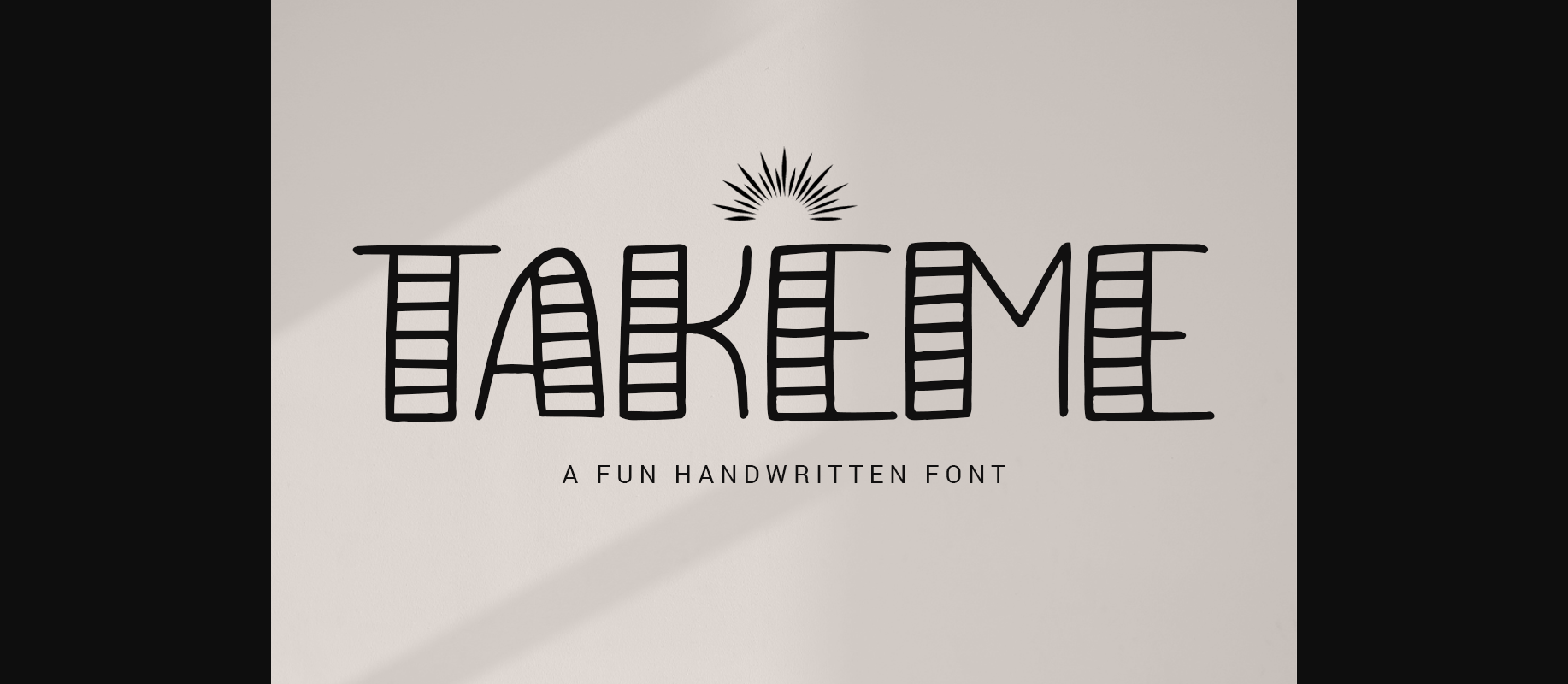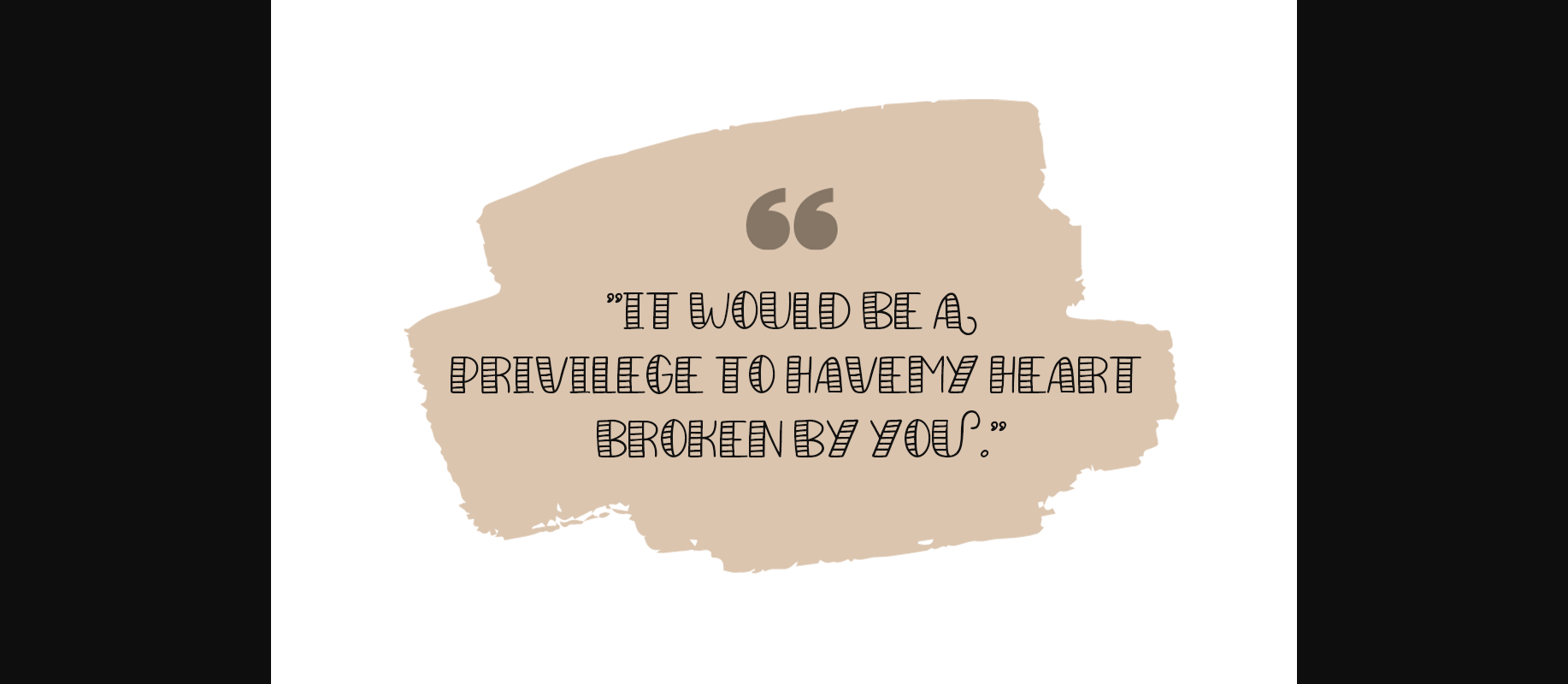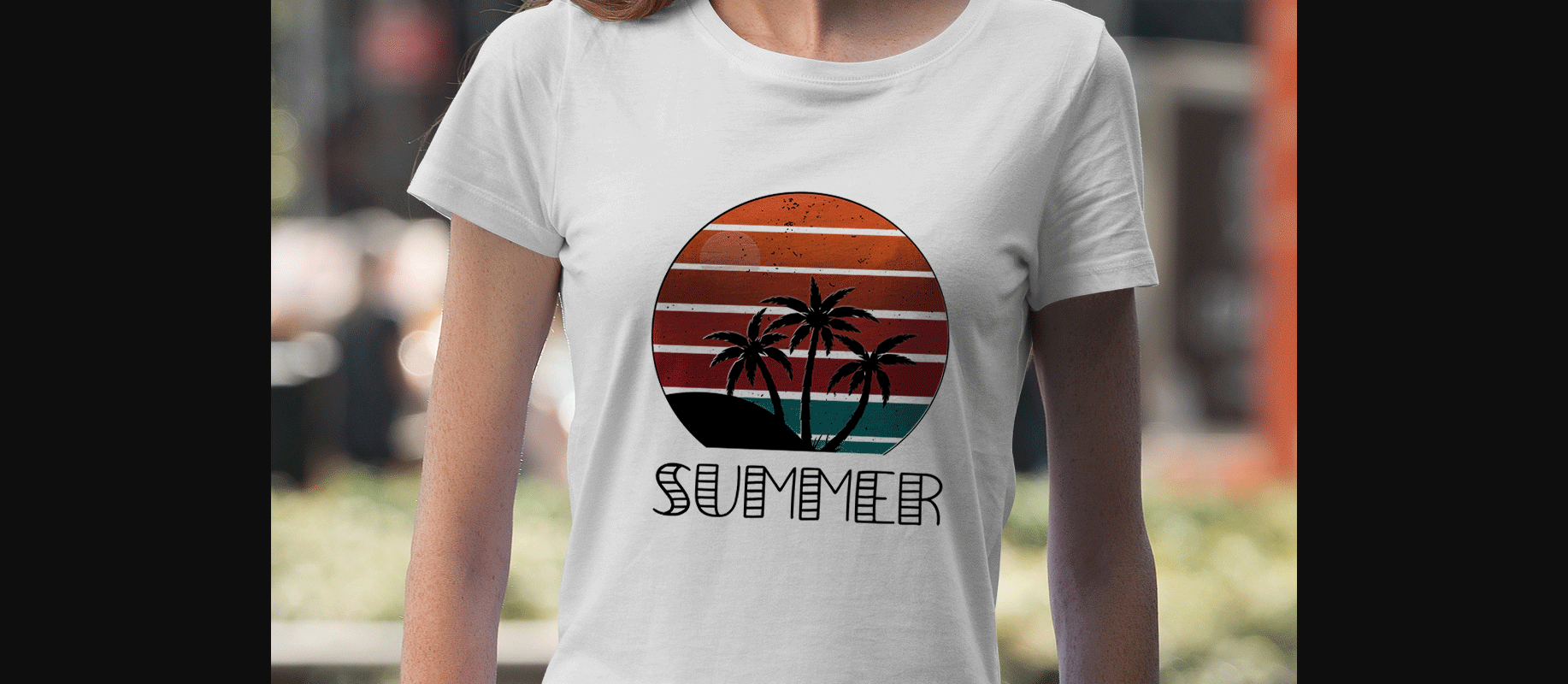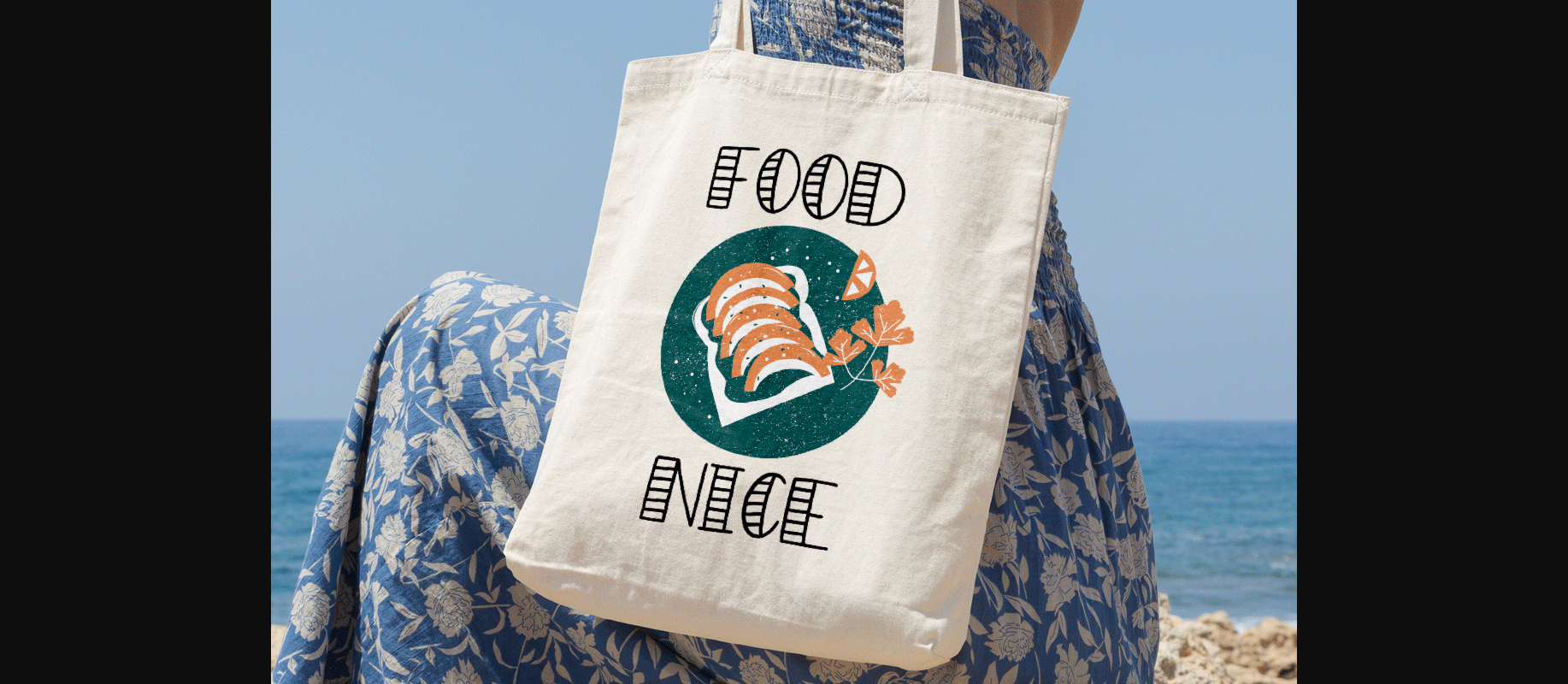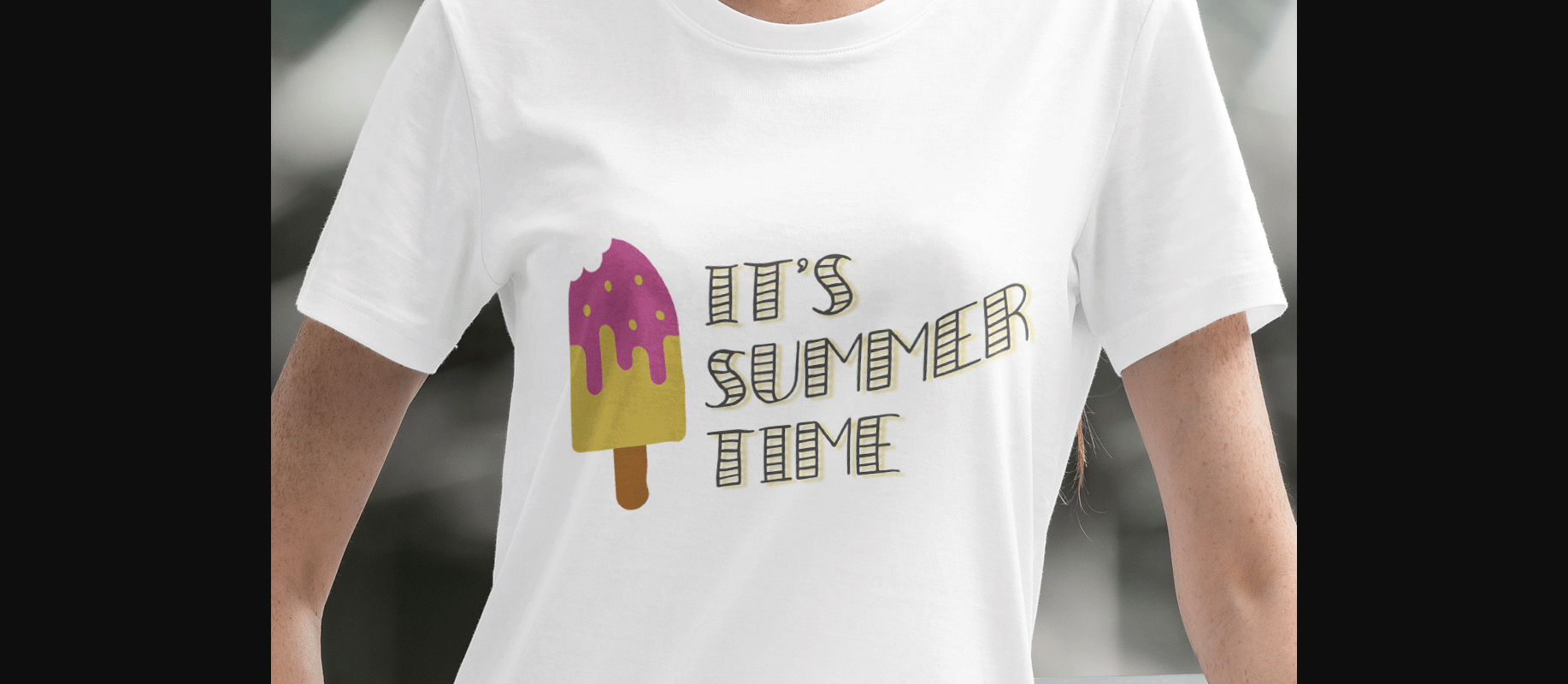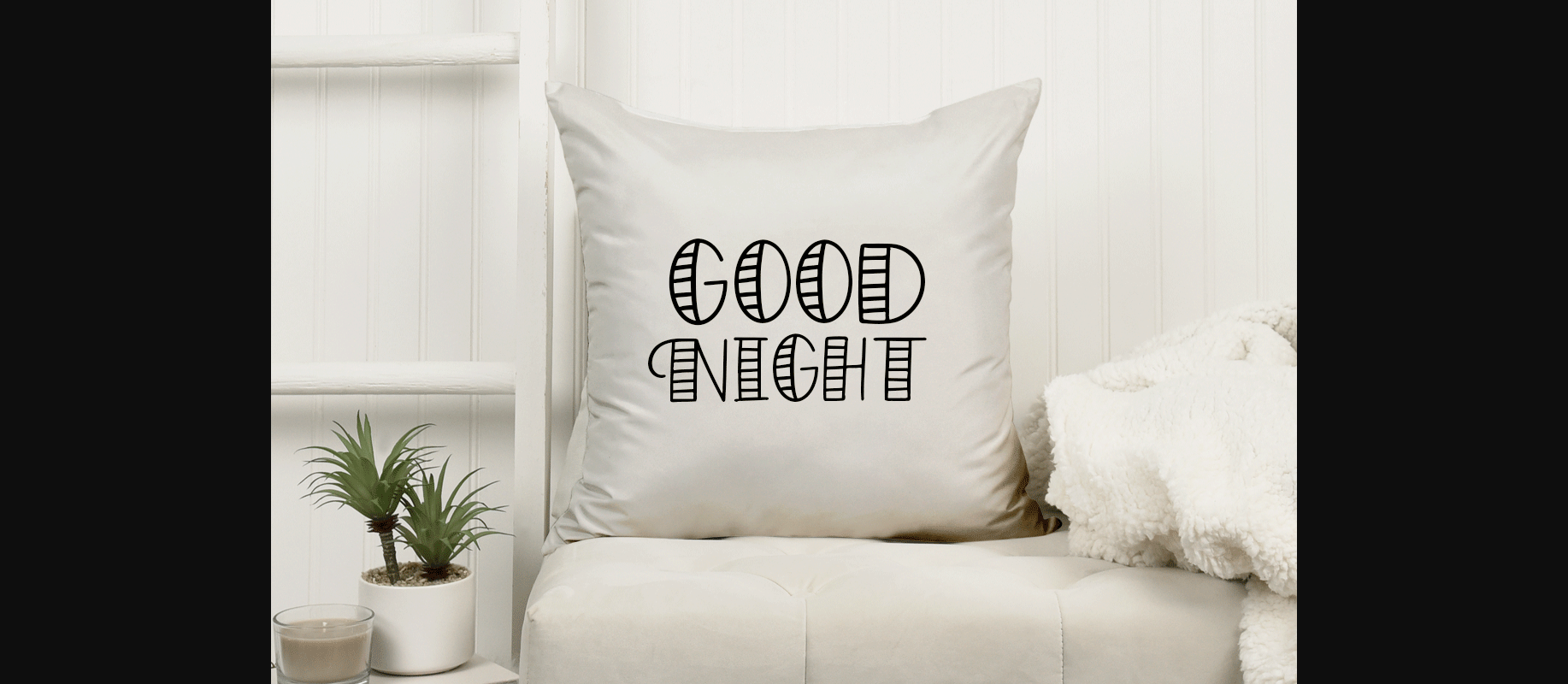
About Takeme Font
Takeme is a cool decorative font made in a cute, and fun style. Add this beautiful display font to any of your creative ideas, and watch how it makes it stand out! Use for titles, logos, or as part of a fun design.